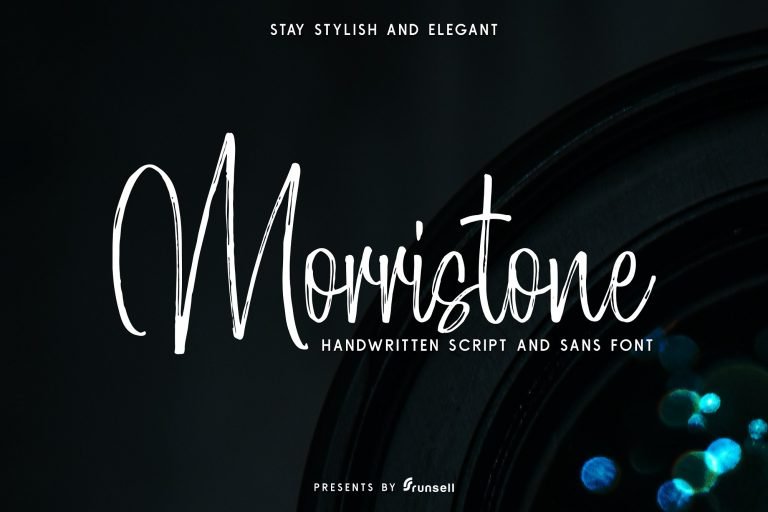
Morristone Brush Font
A new script & sans font. Contemporary approach to design, handmade natural with an less regular baseline. It will be a perfect choice for your work. Add it to your fonts collection now! Introducing Morristone Font! Morristone designed and shared by Runsell Studio. Morristone is a typical font with such a signature look with natural flow and has the texture inside. This font can make your design look authentic and handcrafted. Morristone suitable for this use in you for the signature, logotype, invitation cards, quotes art, website header design, packaging, branding and more.